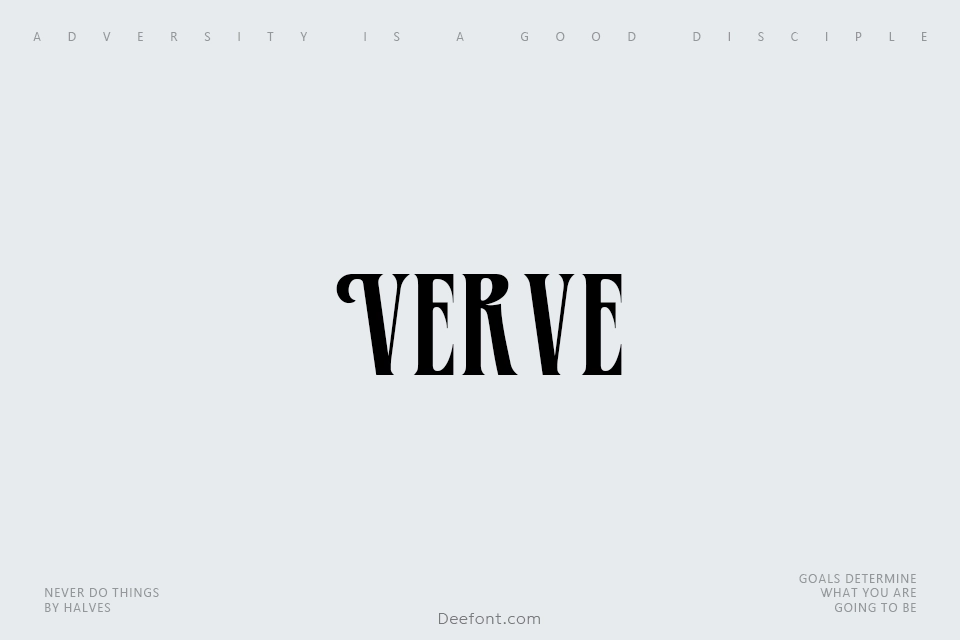
Verve Font
Verve is a stylish and decorative display typeface designed with an elegant retro flair. Featuring three distinct font variations including regular, alternate, and shadow styles, this versatile font excels in creating eye-catching headlines, logos, and decorative typography. With its sophisticated letterforms and balanced proportions, Verve brings timeless charm to packaging, branding projects, and creative designs. Perfect for designers seeking a refined yet bold typeface that combines classical elegance with contemporary appeal for compelling visual presentations.
Designed by:Dieter Steffmann